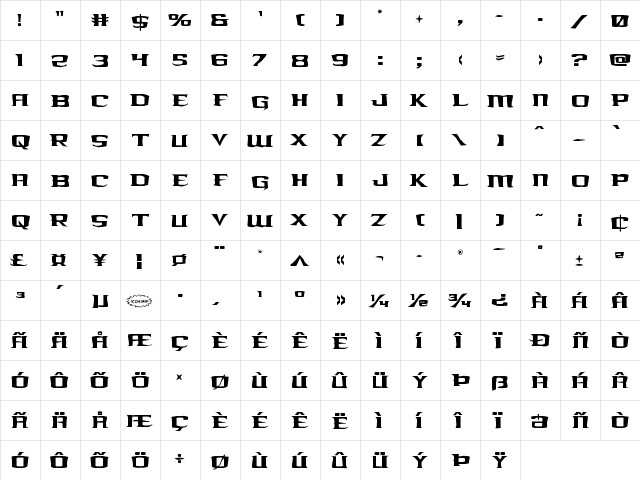
Kreature Kombat Rough Regular
Design Context for Kreature Kombat Rough Typeface
Kreature Kombat Rough embraces imperfection — its rough, textured character adds raw authenticity to designs that want to feel lived-in and unconventional.
Suited to punk-influenced zines, underground music branding, streetwear, and raw, anti-corporate design.
Pro Tip: Pair Kreature Kombat Rough with intentionally raw or lo-fi design elements. Fighting against it with overly polished surroundings will undermine its personality.